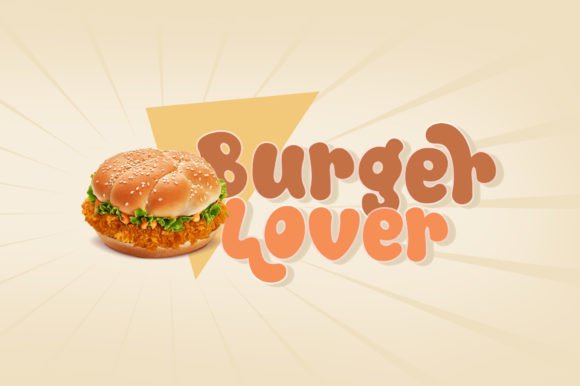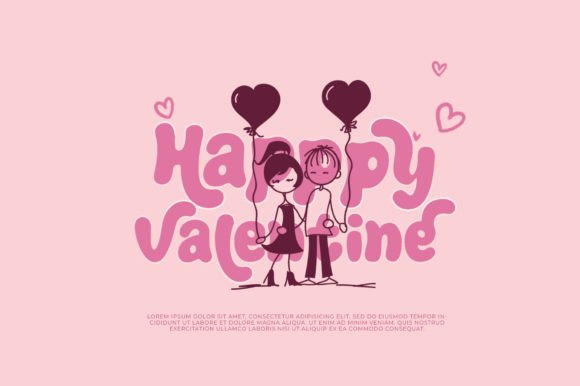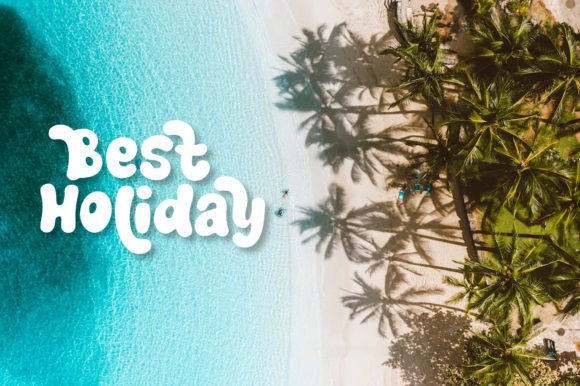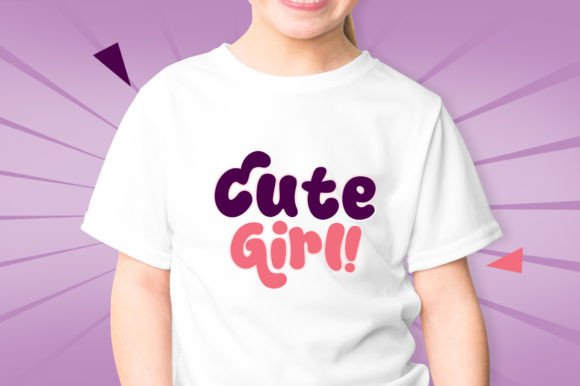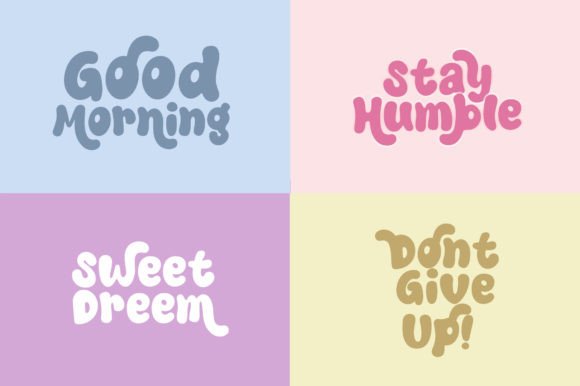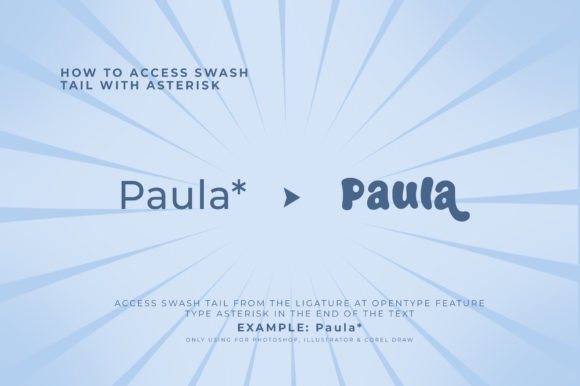
Introduction to Love Sign Font
Do you ever get that creative spark in the middle of the night, where you can’t wait to get to your computer and bring your vision to life? For many designers, this is a familiar feeling, and it’s exactly what inspired us to dive into the world of typography and explore the amazing Love Sign Font. This groovy display font is a treasure trove of design possibilities, waiting to be unleashed on your next creative project.
As a valuable design resource, Love Sign Font offers a high-quality, unique aesthetic that’s perfect for posters, logos, magazines, book covers, banners, and more. With its quirky charm and versatility, it’s no wonder designers are flocking to this font to add a touch of personality to their work. Whether you’re working on a free download or a paid project, Love Sign Font is a must-have for any designer looking to take their designs to the next level.
Key Features of Love Sign Font
- High-quality design: The Love Sign Font is a beautifully crafted, intricate design that is perfect for adding a touch of elegance to your creative project.
- High-resolution design: The Love Sign Font is designed at a high resolution, making it perfect for use in large-scale designs, such as billboards or posters.
- Unique, hand-drawn design: The Love Sign Font features a unique, hand-drawn design that adds a touch of personality to any creative project.
- Perfect for a variety of design projects: Whether you’re working on a romantic design, a wedding invitation, or a social media graphic, the Love Sign Font is a versatile design resource that’s sure to impress.
Honest Review: Love Sign Font
I recently came across the Love Sign Font, a new design resource that has been making waves in the creative community. As a designer, I was eager to dive in and see what all the fuss is about.
- High-quality design: The Love Sign Font has a clean and modern aesthetic that’s perfect for a variety of creative projects.
- Transparent background: This feature makes it easy to use the font on any background, which is a huge plus for designers.
While the Love Sign Font is a great resource, there are a few limitations to keep in mind:
- Limited customization options: The font is quite straightforward and doesn’t offer a lot of customization options.
- No bold or italic versions: If you’re looking for a font with a lot of stylistic options, the Love Sign Font might not be the best choice.
Overall, I’m impressed with the Love Sign Font. It’s a high-quality design resource that’s perfect for a variety of creative projects. While it has some limitations, I think it’s a great addition to any designer’s toolkit.
The Love Sign Font is commonly used in wedding invitations, social media graphics, and other design projects where a romantic or playful touch is desired.